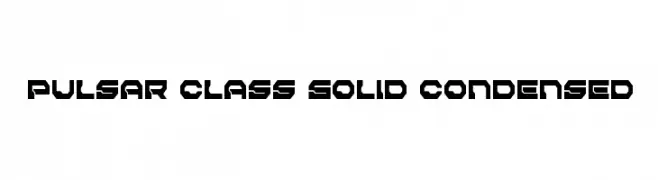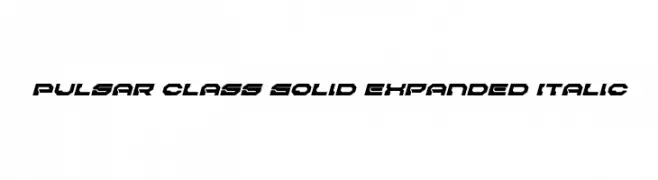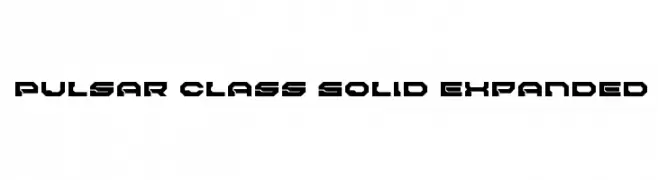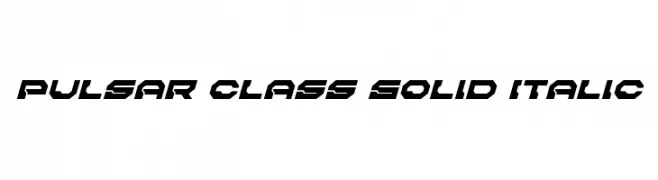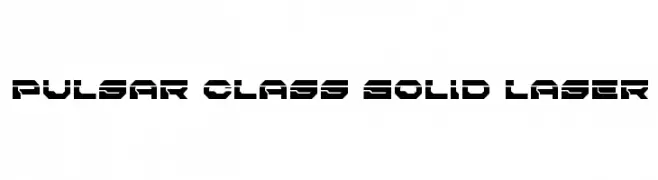
A bold, geometric font with a futuristic and industrial design.
A bold, condensed, and italic font with a futuristic, angular design.
A bold, futuristic font with geometric shapes and sharp angles.
A futuristic, bold, expanded, and italicized font with geometric shapes and sharp angles.
A futuristic, gradient-lined font with a digital and tech-inspired aesthetic.
A futuristic, italicized font with bold, gradient-striped characters.
A bold, futuristic font with a halftone effect and geometric design.
A bold, italicized font with a futuristic halftone effect and dynamic design.
A bold, italicized font with a futuristic and angular design.
A futuristic, geometric font with bold, angular shapes and a solid appearance.